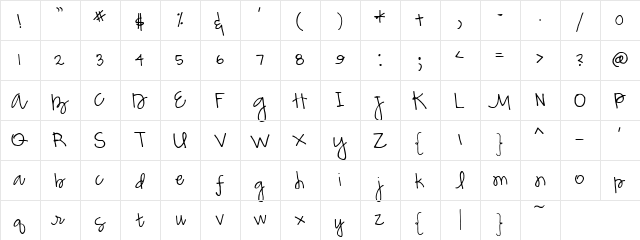
ck_mindi Medium
Design Context for ck_mindi Typeface
ck_mindi takes a measured approach to typography — its balanced proportions and neutral character make it a reliable workhorse for both digital and print work.